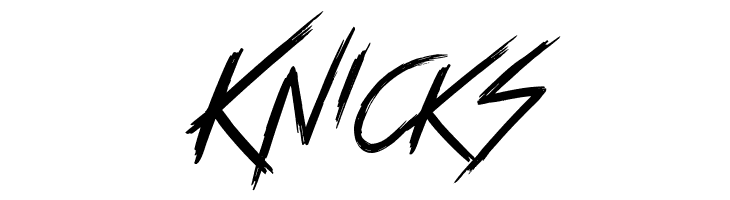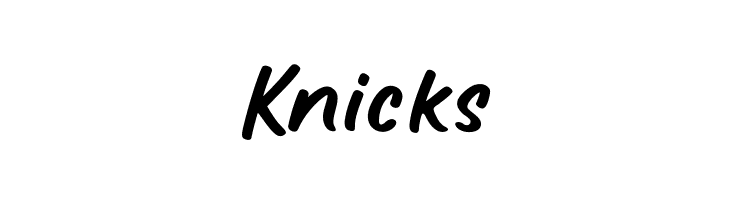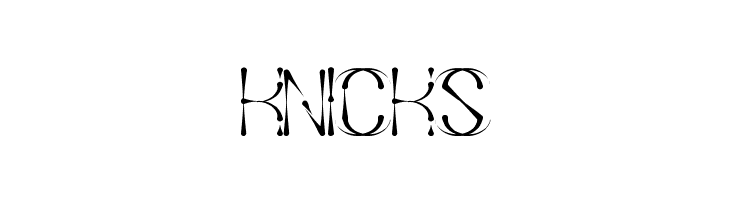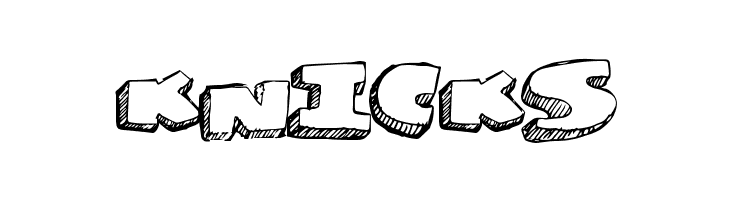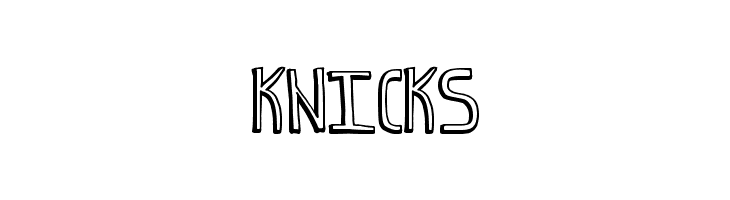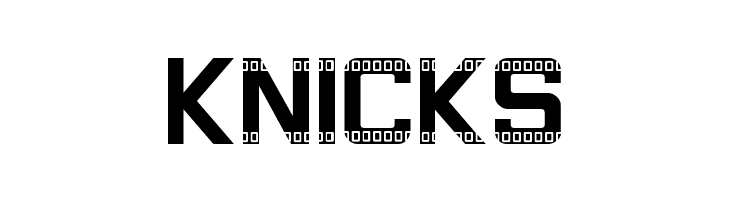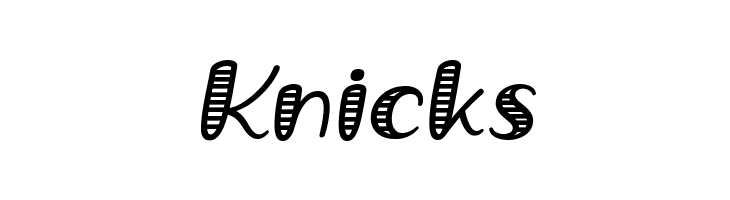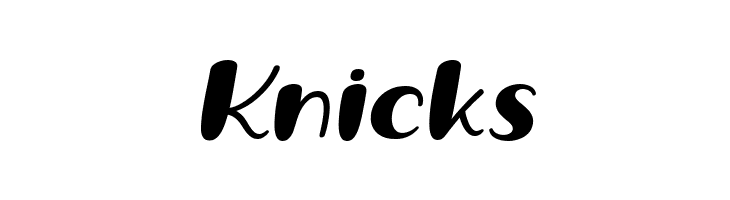
• Grande October Four Italic
( 7NTypes - Situjuh Nazara - 7ntypes.com )
A playful, striped italic font with a dynamic and friendly style.
• Grande October Three
( 7NTypes - Situjuh Nazara - 7ntypes.com )
A playful, bold font with rounded, thick strokes and a whimsical style.
• Grande October Three Italic
( 7NTypes - Situjuh Nazara - 7ntypes.com )
A dynamic, italicized font with a playful yet sophisticated style.
• GrapeBlaster
A playful, hand-drawn font with bold outlines and quirky character designs.
• GrapeSoda
A playful, hand-drawn font with a 3D sketch effect.
• GRATIS
A bold, geometric sans-serif font with a modern and impactful style.
• GRATIS
A bold, geometric font with a modern, structured design.
• gravitation
• Great Rebellion
A bold, brush-style font with dynamic, rebellious strokes.
• Greathy
( Fonts by Allouse Studio )
A lively handwritten font with fluid, connected strokes and a playful aesthetic.